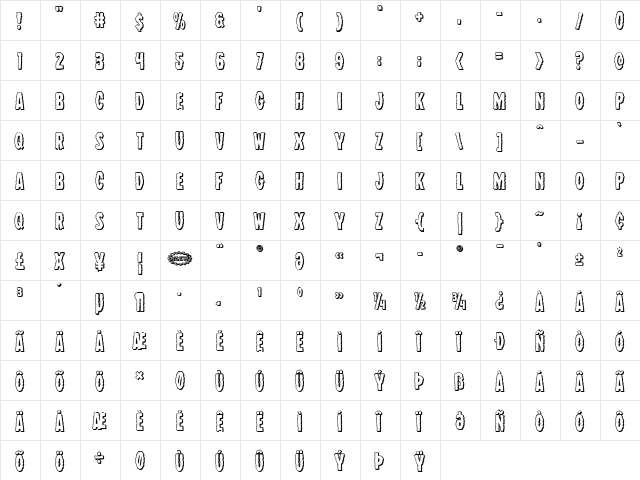
Wolf Brothers 3D Regular
Design Context for Wolf Brothers 3D Typeface
Wolf Brothers 3D is a composed and adaptable typeface that performs quietly and consistently across a wide range of design contexts.